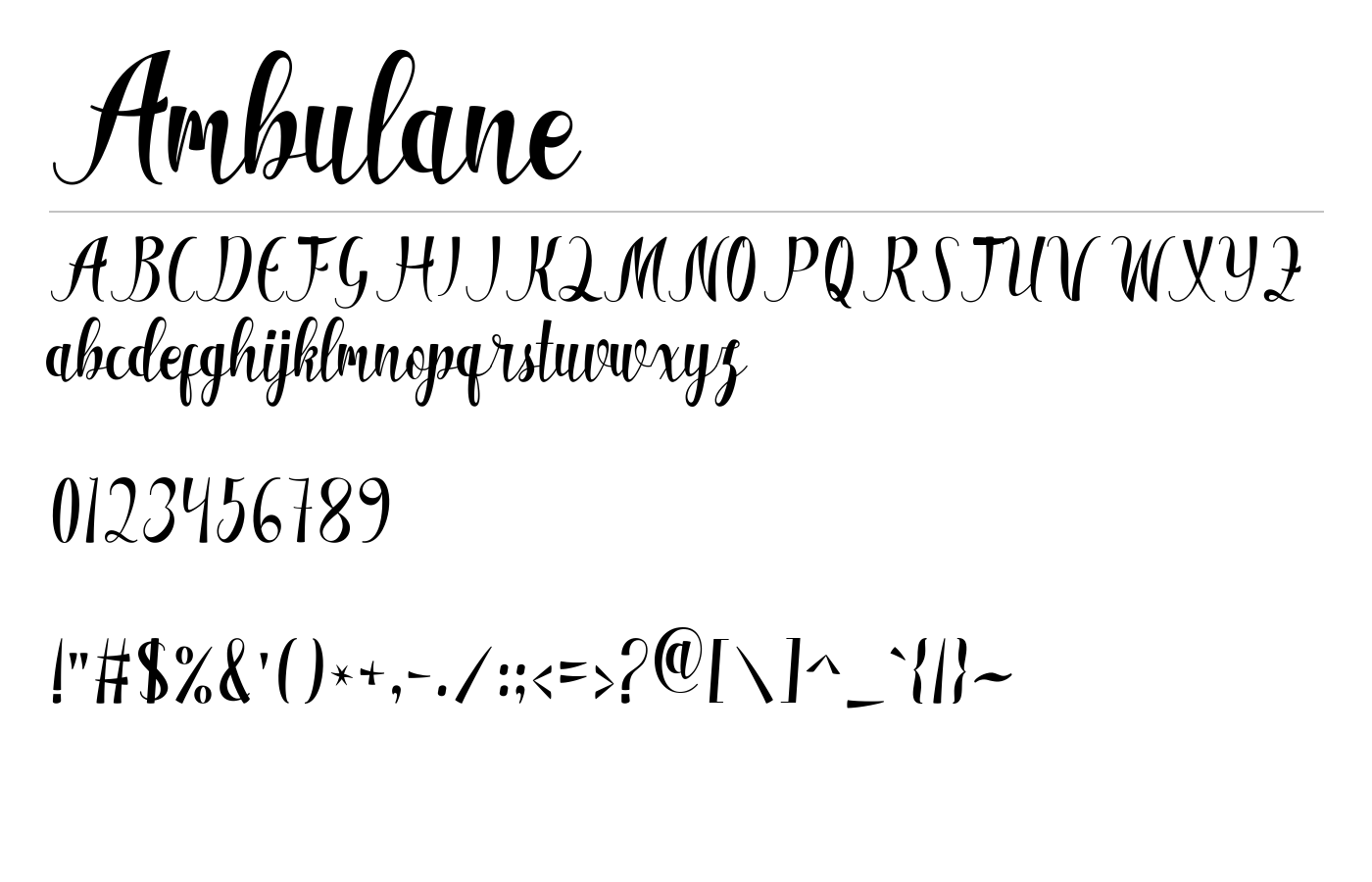
Ambulane is an elegant, hand-lettered script font with smooth, flowing strokes and a moderately high contrast between thick and thin lines, giving it a refined and graceful appearance. Its tall, narrow letterforms with distinctive swashes and curls convey a stylish, playful yet sophisticated vibe, ideal for fashion branding, invitations, and creative headlines. This font works well where a personal, artistic touch is needed, adding charm and elegance to packaging, logos, and editorial designs.
Ambulane Font
About Ambulane Font
| Font family | Ambulane Font |
| Designer | Jhoen |